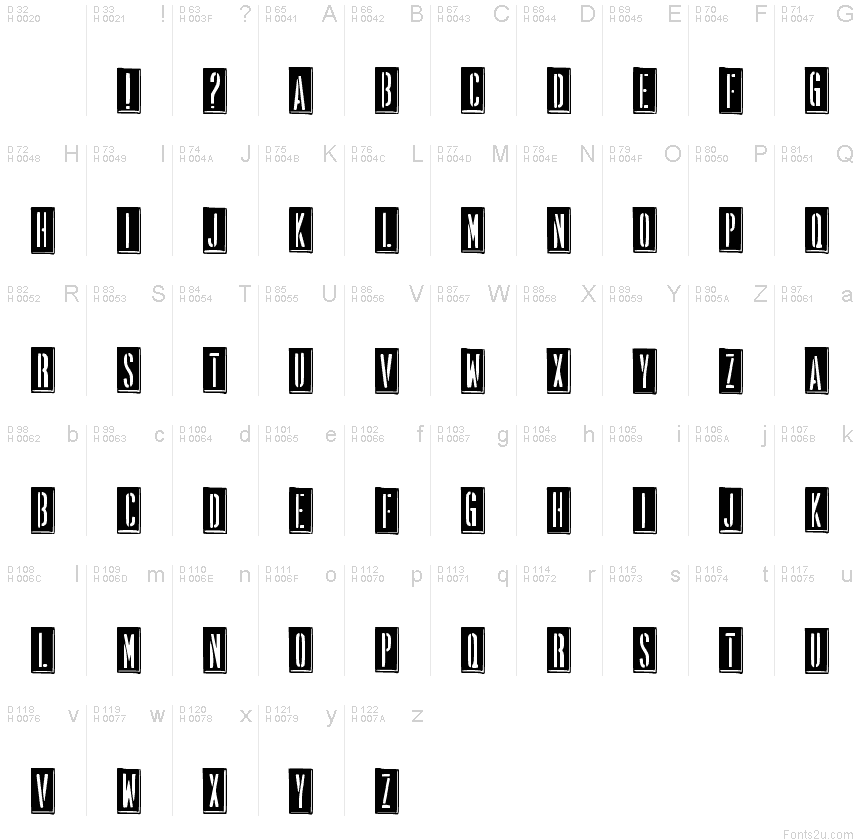
Propaganda
PROPAGANDA is a free military stencil display font created with the help of MyScriptFont.com, and its caps lean hard into barracks-sign lettering. The letters are tall, squared off, and cut with narrow breaks that turn simple forms into blunt, painted-marking shapes with a stern wartime poster mood.
It fits posters, album covers, protest graphics, title cards, packaging, and short mastheads where that drilled, institutional edge matters more than polish. As a free font, it also works for monograms, chapter openers, and brief headlines because the repeated stencil cuts keep the caps feeling uniform, forceful, and easy to use in tight, punchy settings.